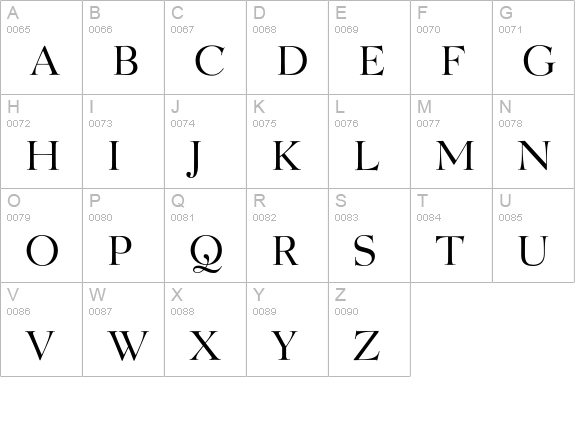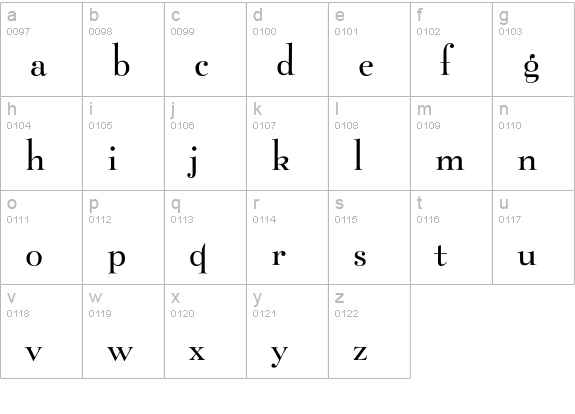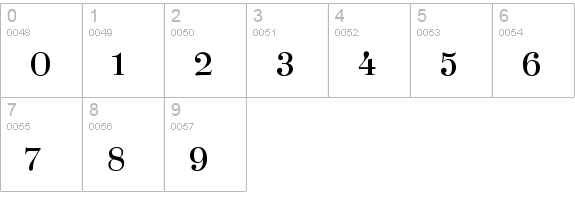
BeLucianBook Font Details
BeLucianBook is a beautifully crafted serif font that exudes elegance and sophistication. With its unique and modern design, this font is perfect for various design projects such as branding, editorial design, and more. Its sleek lines and balanced proportions make it a versatile choice for both digital and print applications. What sets BeLucianBook apart is not only its stunning aesthetic but also the fact that it is available for free. Yes, you read that right! You can freely download BeLucianBook at FontsMarket.com and start using it in your projects right away. This means you can access this high-quality font without any cost, making it a valuable addition to your font library. Whether you are a professional designer or someone looking to enhance your creative projects, BeLucianBook is a must-have font that combines style and accessibility. Download it today and elevate your designs with this exceptional typeface.